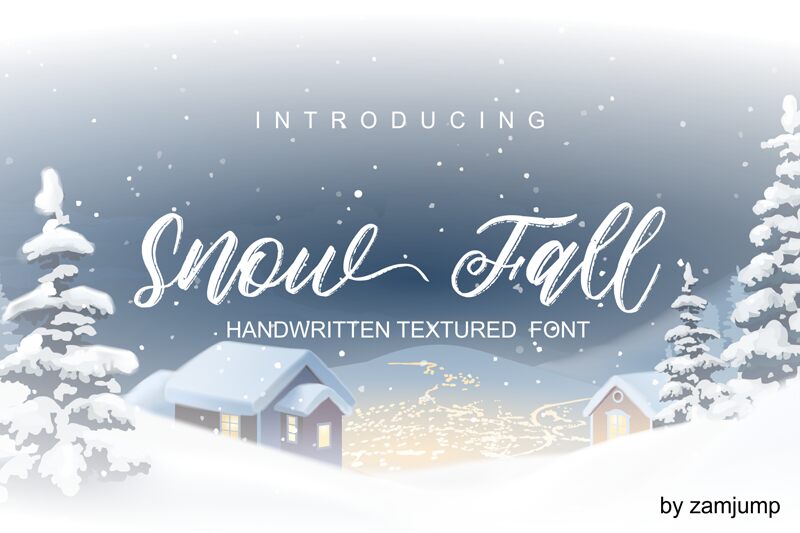
Introducing Snow Fall, the perfect font for any project that requires a touch of whimsy and personality. Designed by the talented Zamzami Ahmad of zamjump_studio, this semi-condensed typeface features a charming handwritten style with a delightful textured finish. Whether you're designing wedding invitations, creating social media graphics, or crafting a logo for your business, Snow Fall will add a unique flair to your work that is sure to captivate your audience. So why settle for ordinary when you can make your designs extraordinary with Snow Fall?
Snow fall — Schriftpräsentation